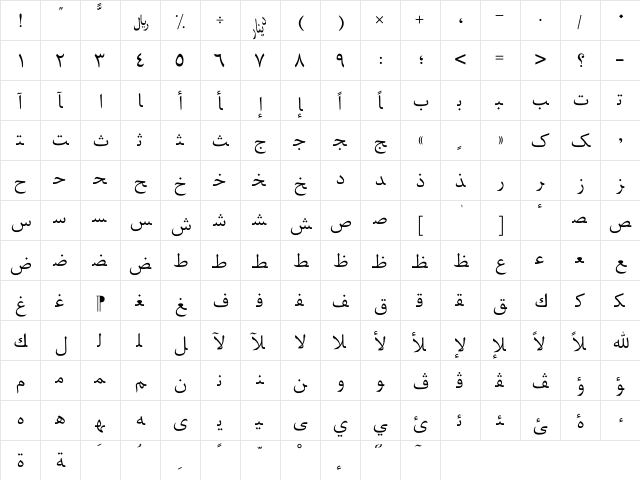
Arabic Web Regular
| Foundry | International Systems Consultancy |
| Designer | International Systems Consultancy |
Design Context for Arabic Web Typeface
Arabic Web is a composed and adaptable typeface that performs quietly and consistently across a wide range of design contexts.